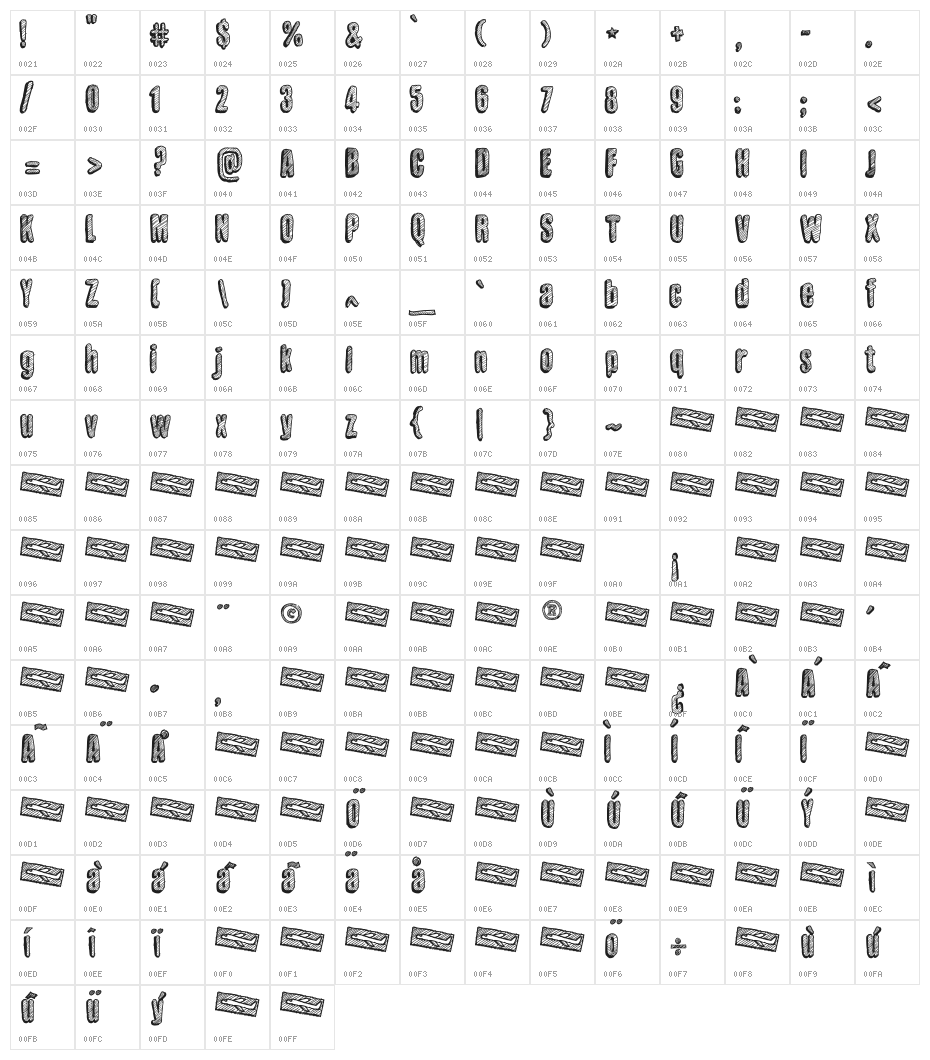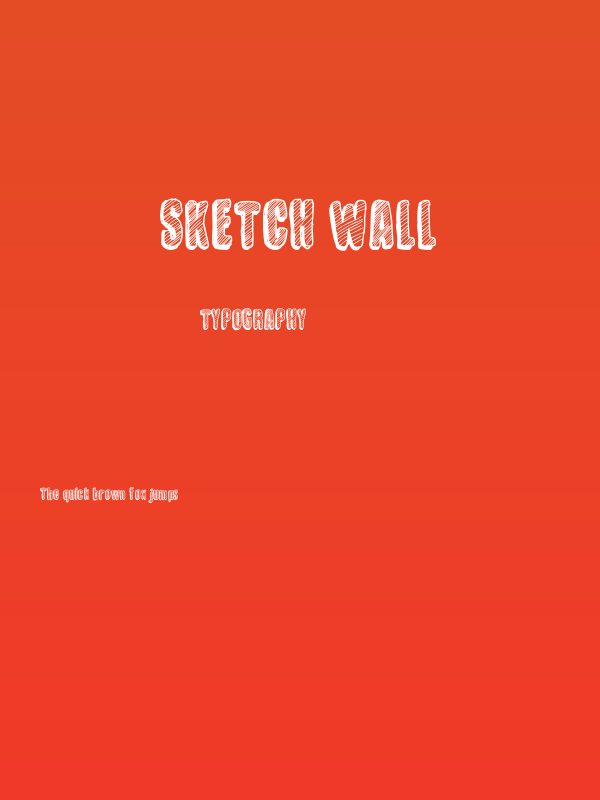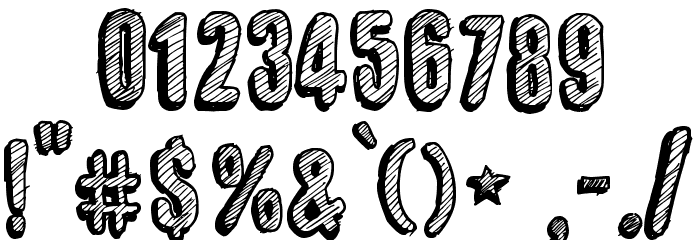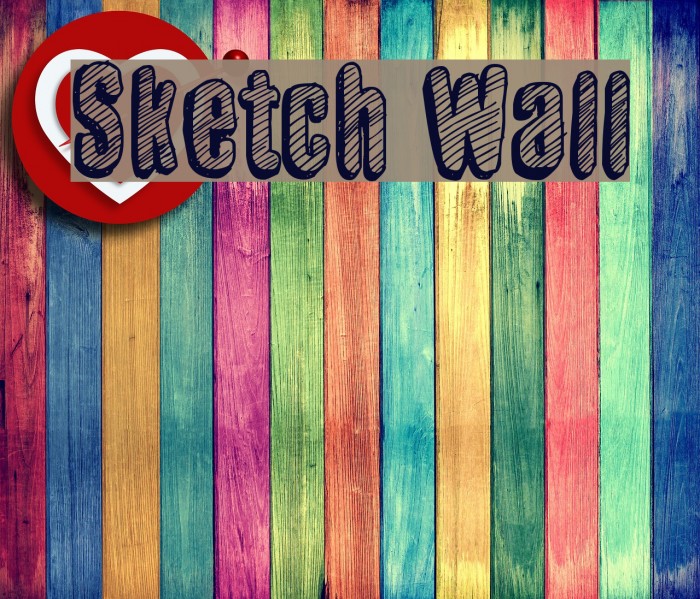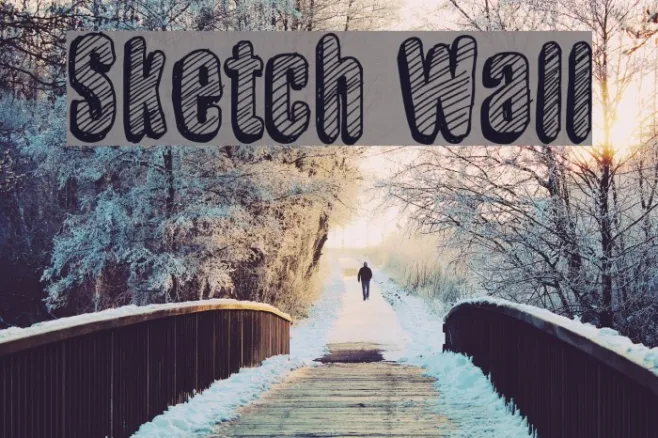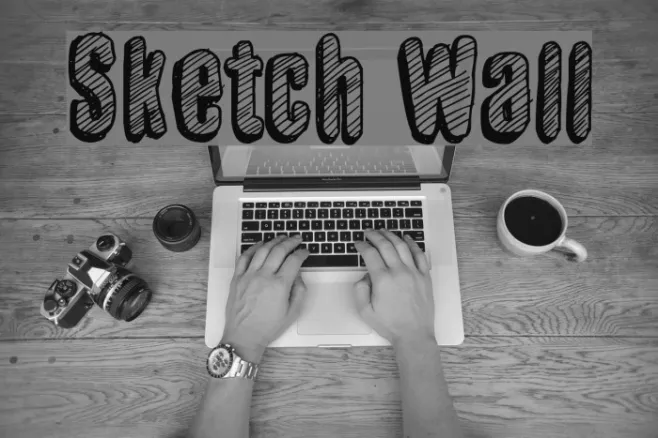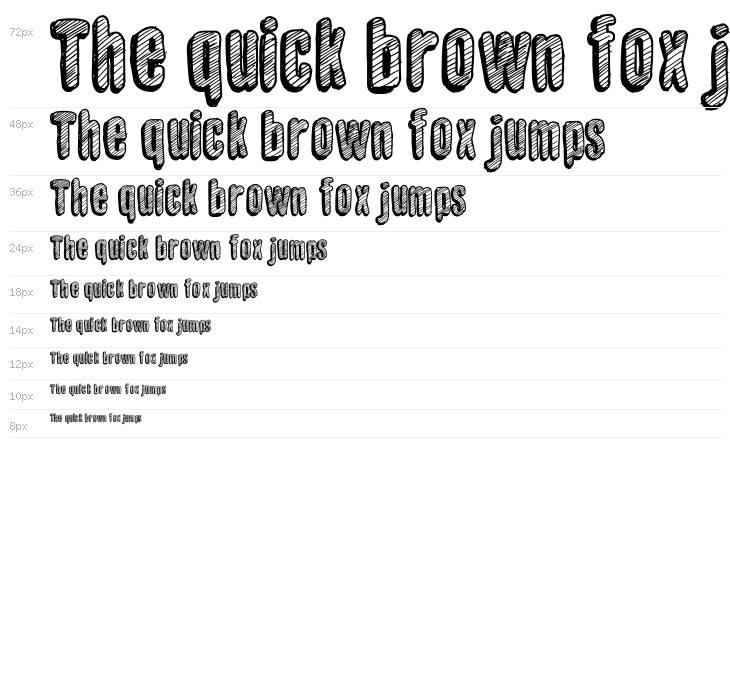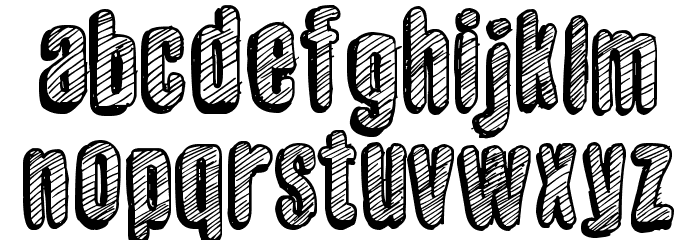
Sketch Wall Font
Sketch Wall Description
This font features a playful and artistic style, characterized by its sketch-like appearance. Each character is outlined with a bold, black line and filled with diagonal hatching, giving it a hand-drawn, textured look. The letters are rounded and slightly irregular, adding to the casual and informal feel. This unique style makes it stand out, perfect for creative projects that require a touch of whimsy and individuality. The font includes a full set of uppercase and lowercase letters, numbers, and a variety of special characters, all maintaining the same sketchy aesthetic.
| Proposed Projects | Ideal for children's book covers, comic strips, playful branding, and artistic posters. |